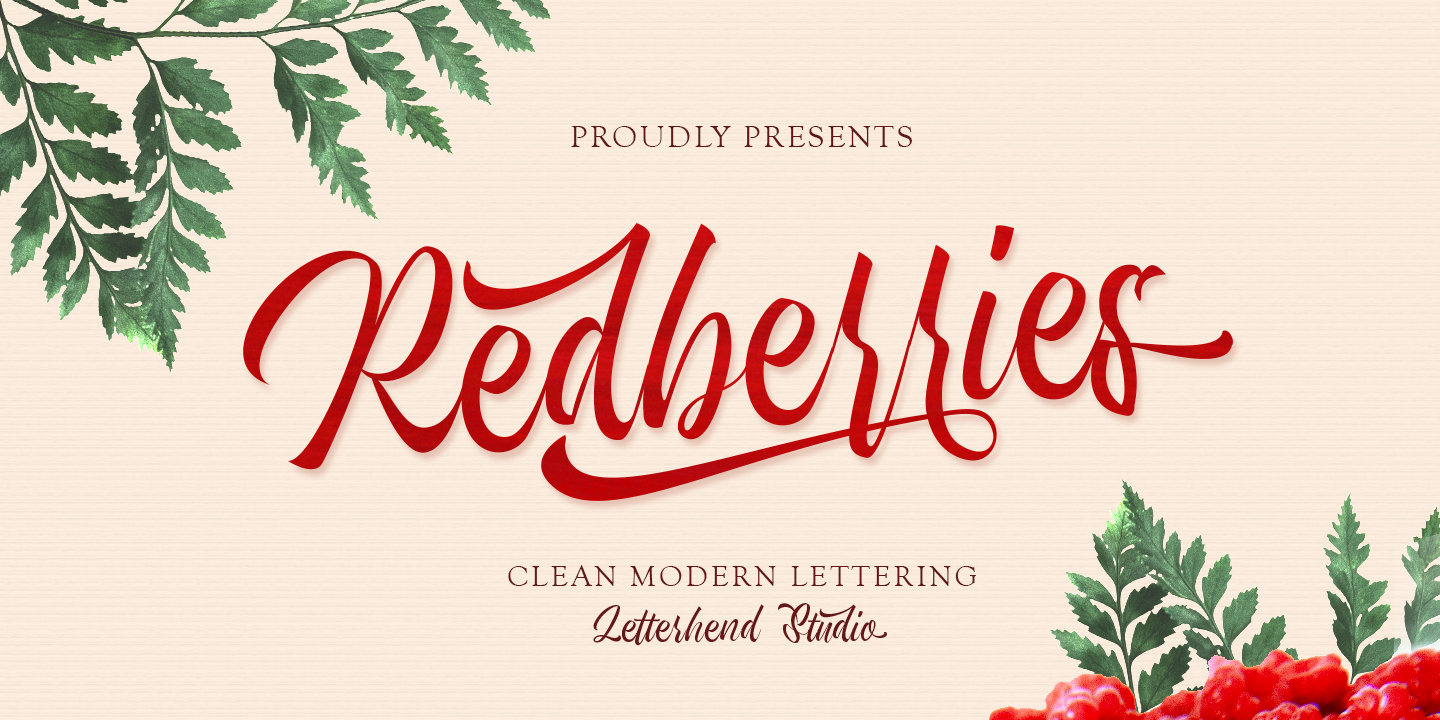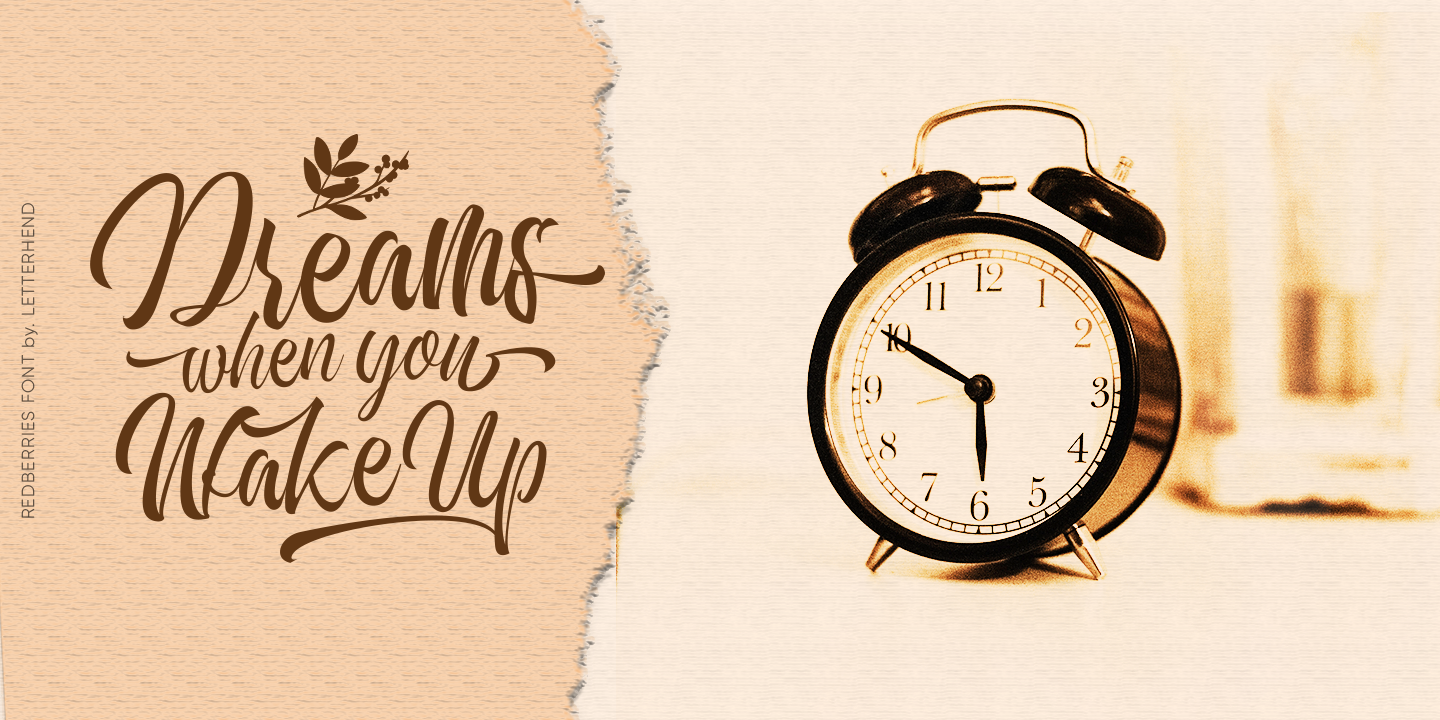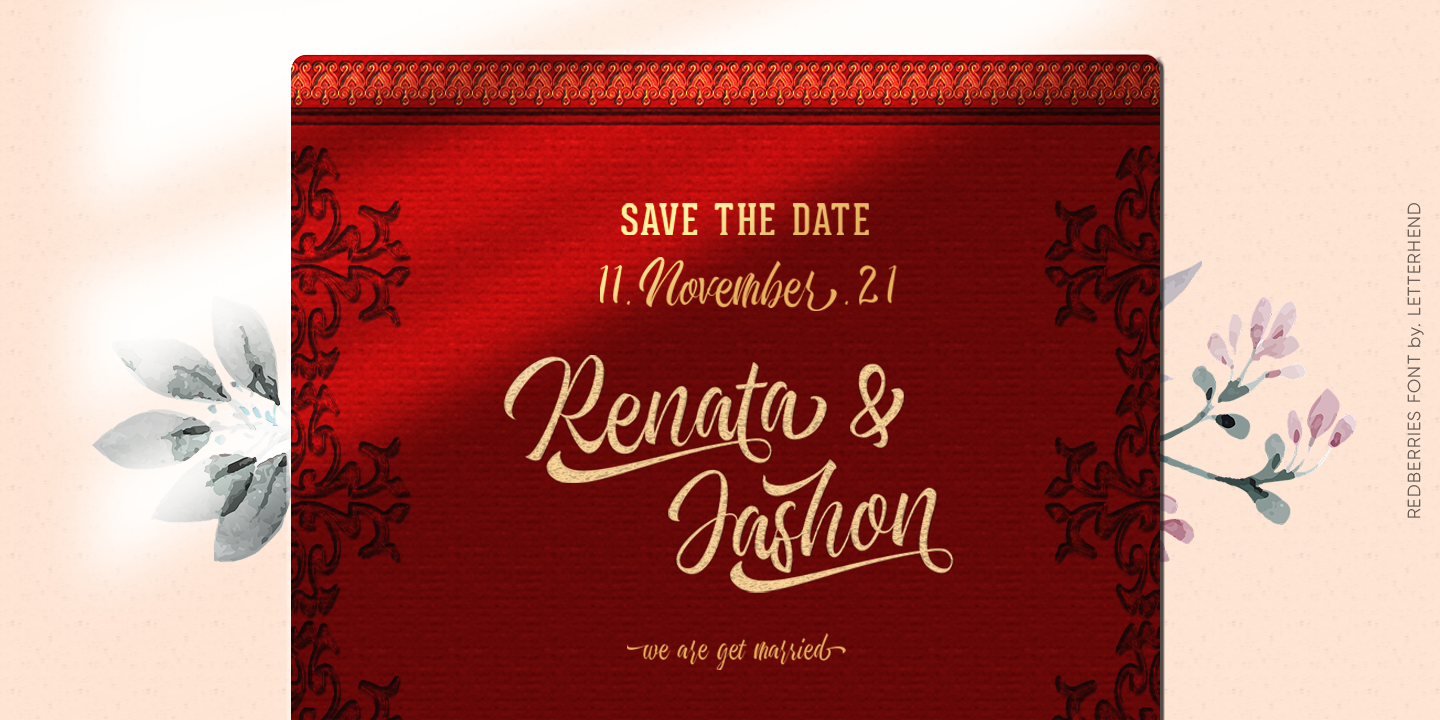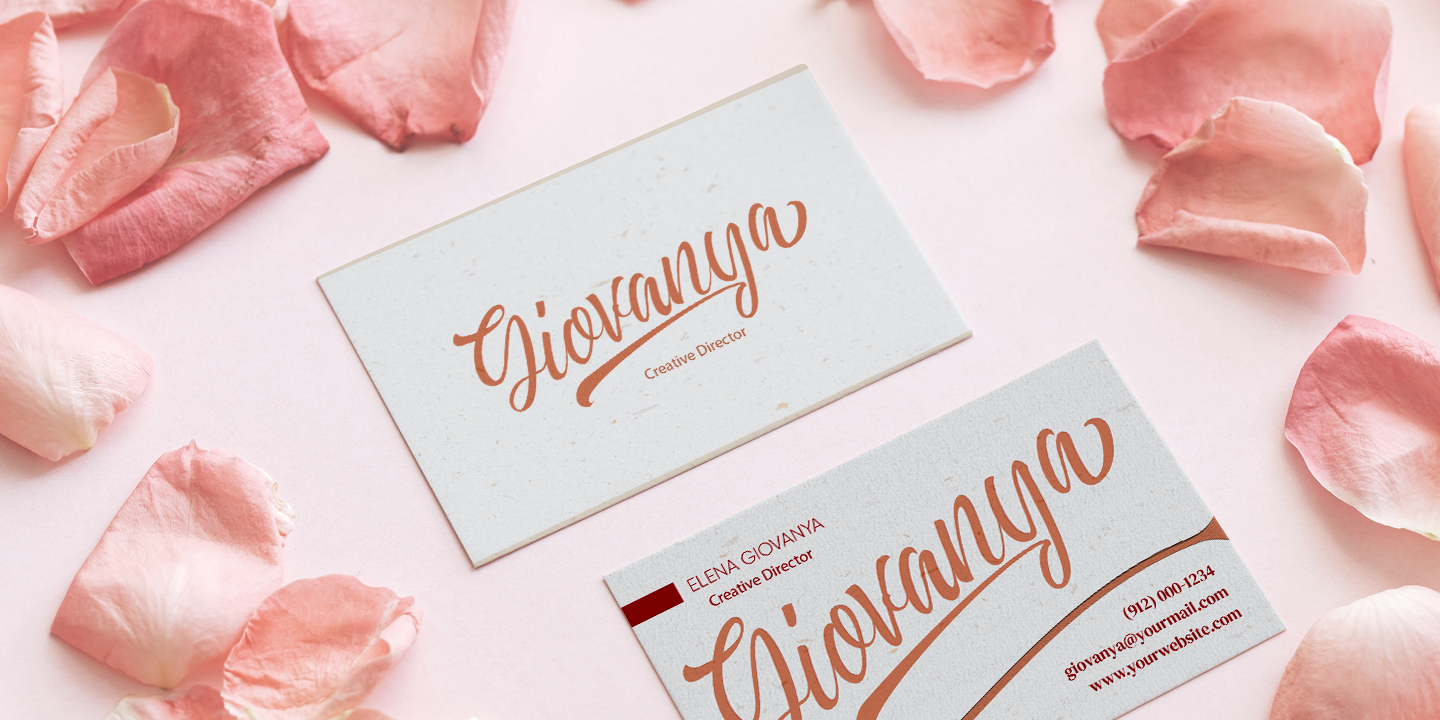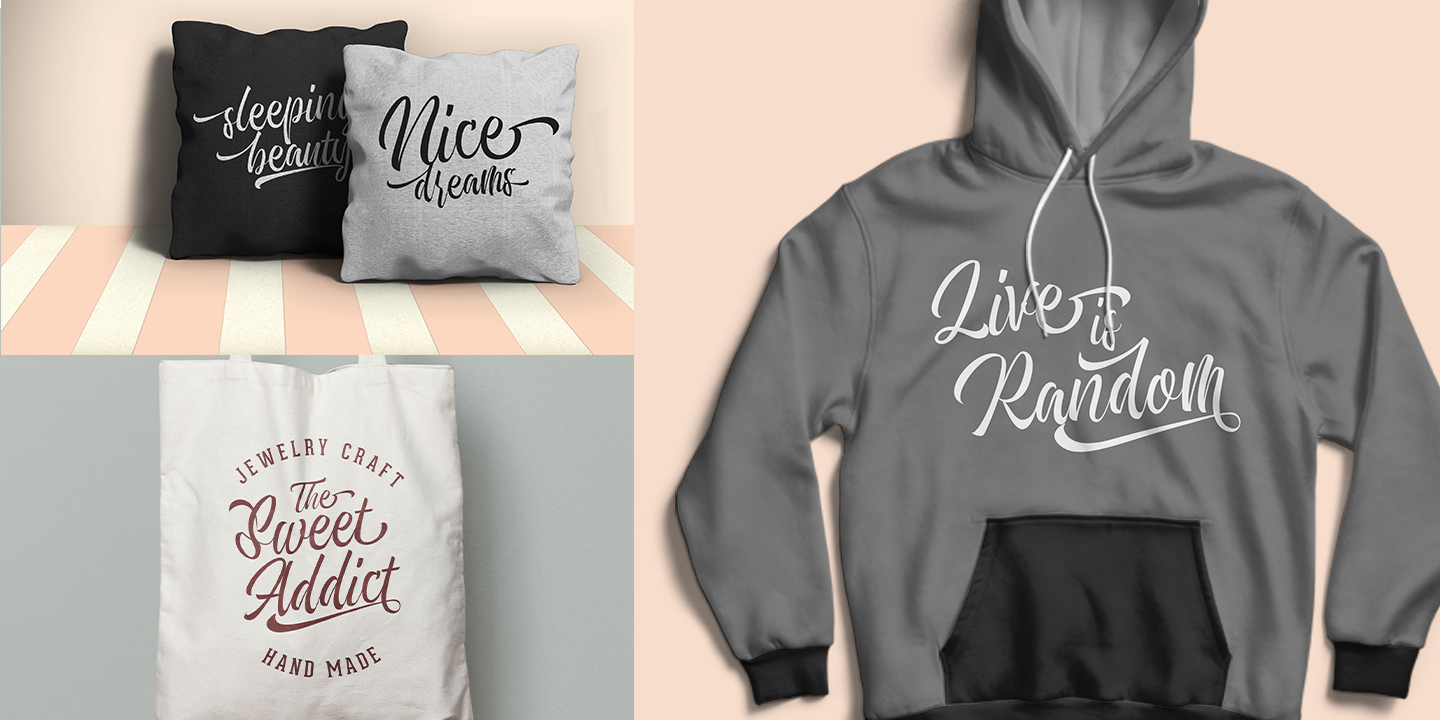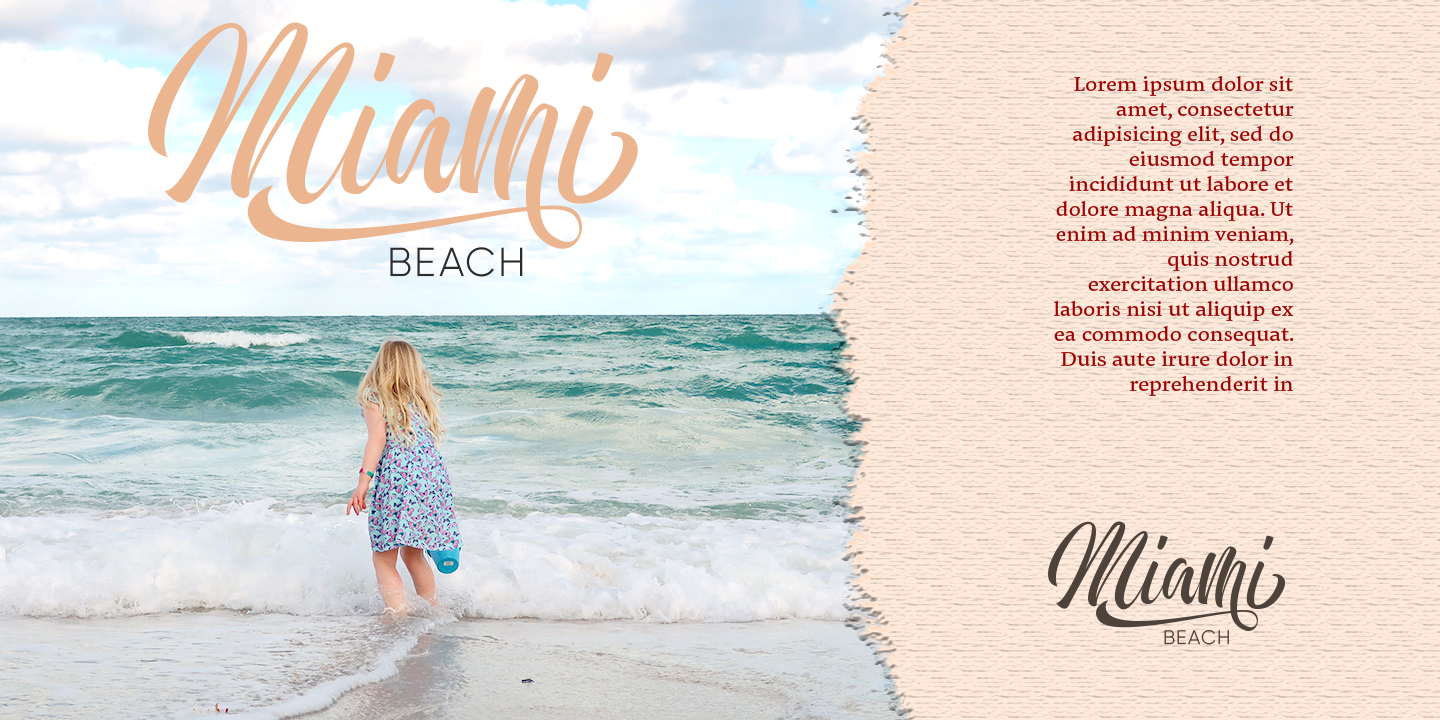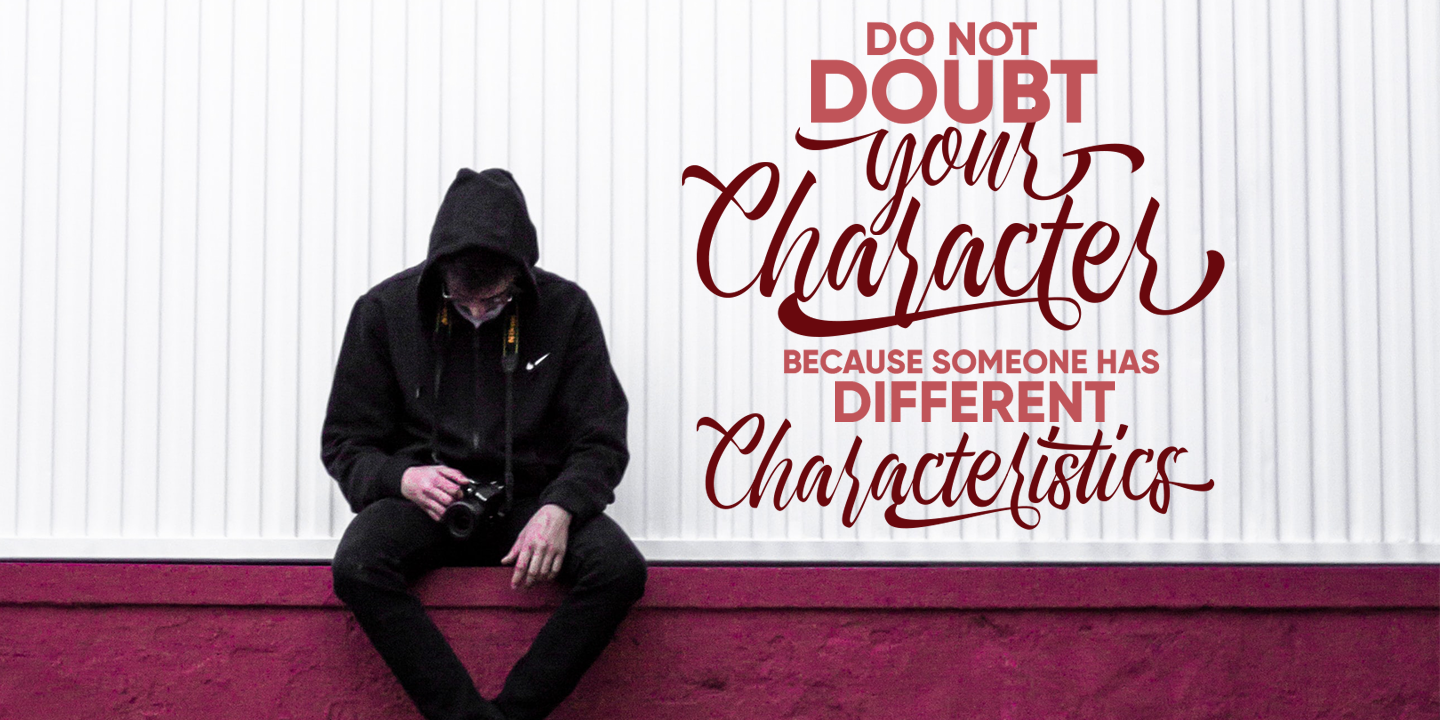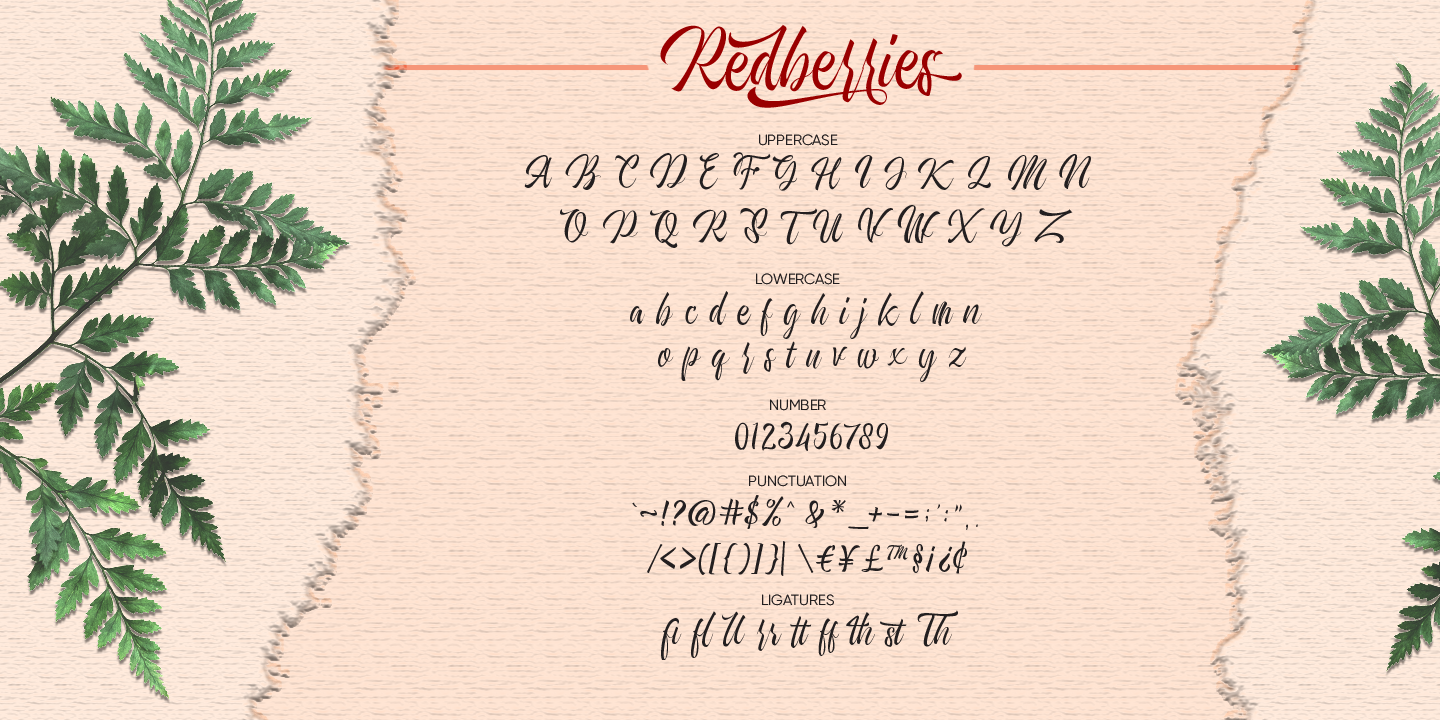
Introducing, Redberries Script. A beautiful and unique modern calligraphy script typeface. This type of font perfectly made to be applied especially in logo, and the other various formal forms such as invitations, labels, logos, magazines, books, greeting / wedding cards, packaging, fashion, make up, stationery, novels, labels or any type of advertising purpose.
Features :
- uppercase & lowercase
- numbers and punctuation
- multilingual
- swashes and ligatures
- alternates